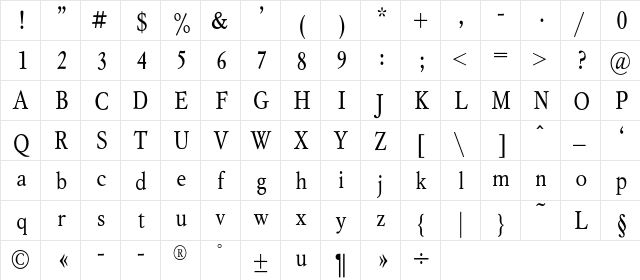
MyslNarrow Regular
Design Context for MyslNarrow Typeface
MyslNarrow offers clean, dependable letterforms without strong stylistic allegiance, making it a practical choice for designers who need flexibility. Its narrow stance lets it pack a punch even in space-constrained designs.
Pro Tip: Pair MyslNarrow with a font of contrasting weight or personality to build a more expressive typographic hierarchy.